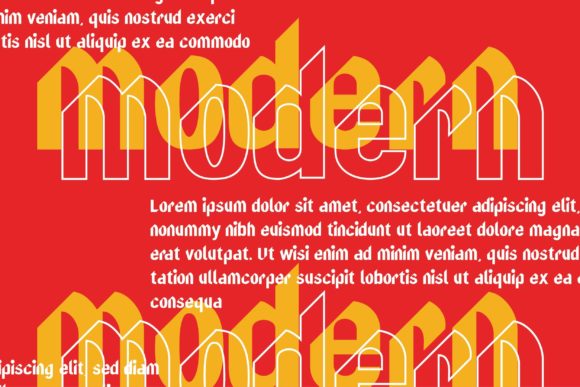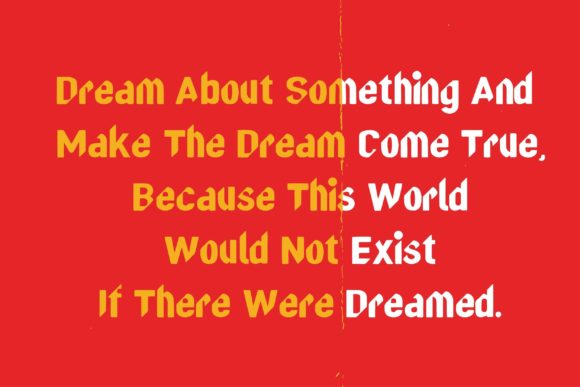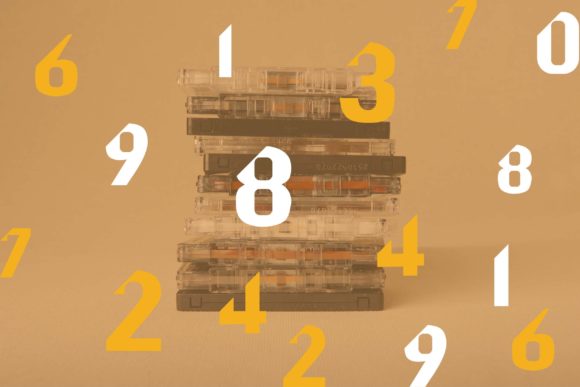
Furious Font: A Cool, Bold, and Modern Display Font
Furious Font is a stunning display font that’s perfect for designs related to speed, power, or sports. Its bold and modern aesthetic makes it an excellent choice for headlines, titles, and any other design element that needs to make a statement. With Furious Font, you can add a touch of energy and dynamism to your designs, making them truly unforgettable.
The Good: ✨
- ✅ Unique and eye-catching design: Furious Font stands out from the crowd with its distinctive style that’s both bold and elegant.
- ✅ Highly versatile: This font can be used for a wide range of designs, from sports and fitness to technology and entertainment.
- ✅ Easy to read: Despite its bold nature, Furious Font remains surprisingly legible, even at smaller sizes.
The Not-So-Good: 🤔
- ⚠️ Limited use cases for body text: Due to its bold nature, Furious Font may not be the best choice for longer blocks of text.
- ⚠️ Some characters may require adjustments: Certain characters, like the lowercase “l” and “I”, may need to be adjusted for optimal spacing.
The Designer Inspiration Behind Furious Font
Furious Font was designed with the goal of capturing the essence of speed and energy. Its creator drew inspiration from the world of sports, technology, and high-performance vehicles. The result is a font that’s both bold and elegant, perfect for designs that need to make a statement.
Q: What type of designs is Furious Font best suited for?
A: Furious Font is ideal for designs related to speed, power, or sports, such as logos, posters, and social media graphics.
Q: Can I use Furious Font for body text?
A: While Furious Font is legible, its bold nature makes it better suited for headlines and titles. For longer blocks of text, a more traditional font may be more suitable.
Q: Does Furious Font support OpenType features?
A: Yes, Furious Font supports OpenType features, including stylistic alternates and glyphs.